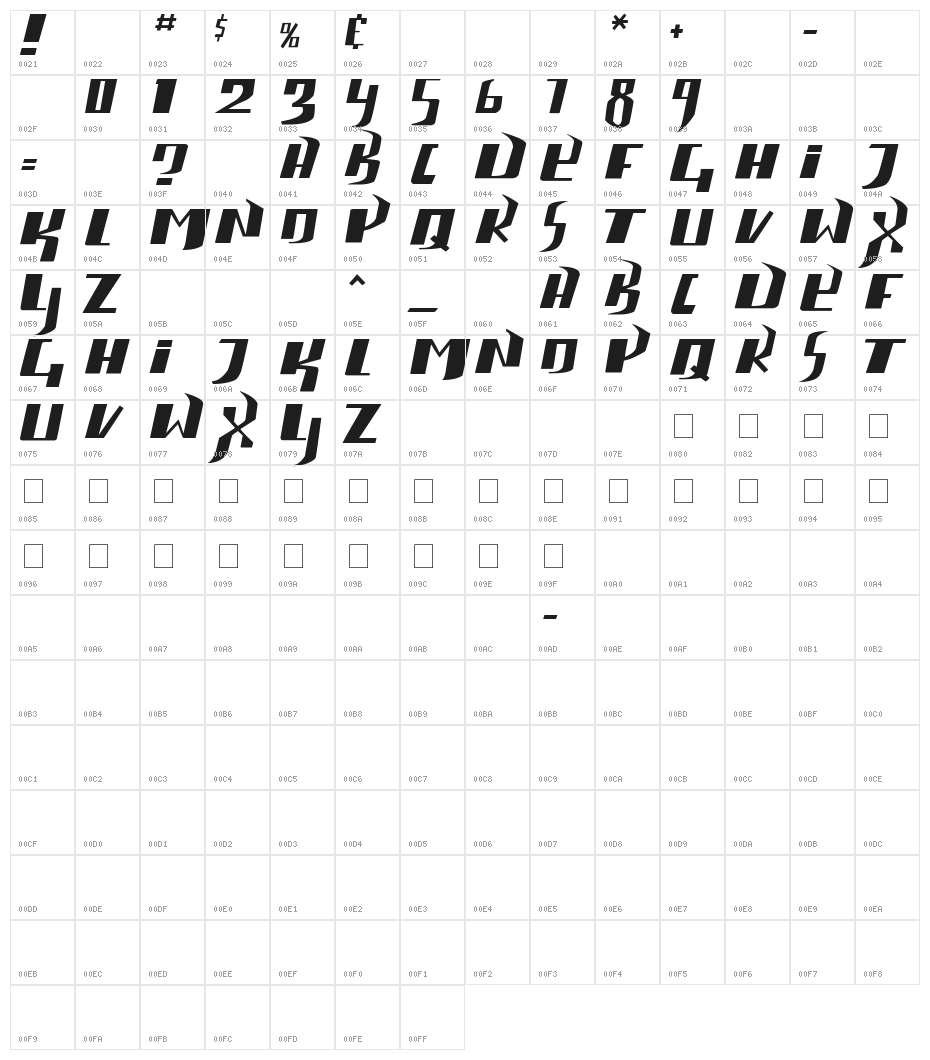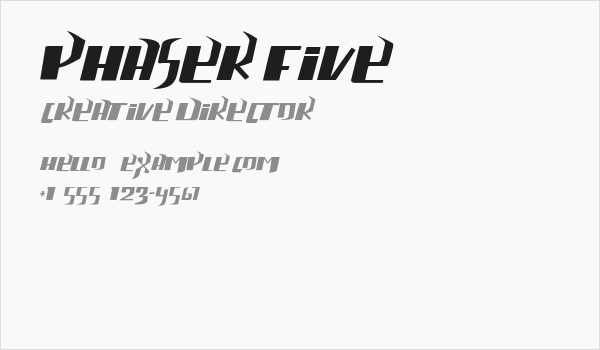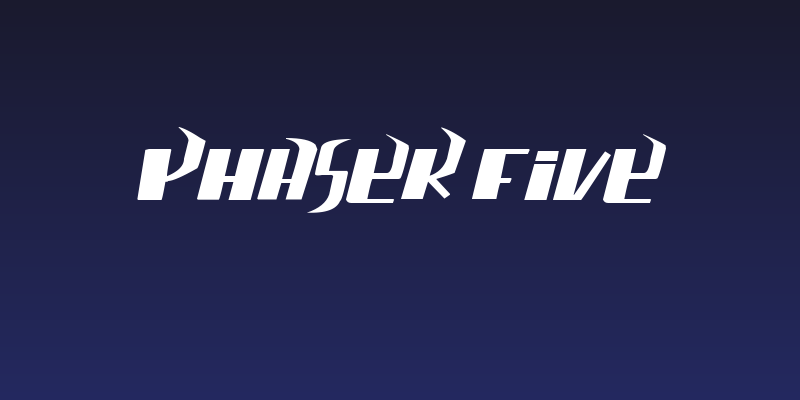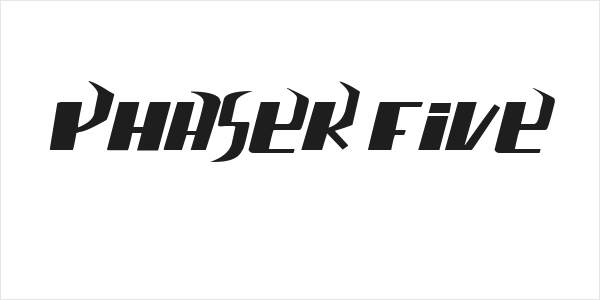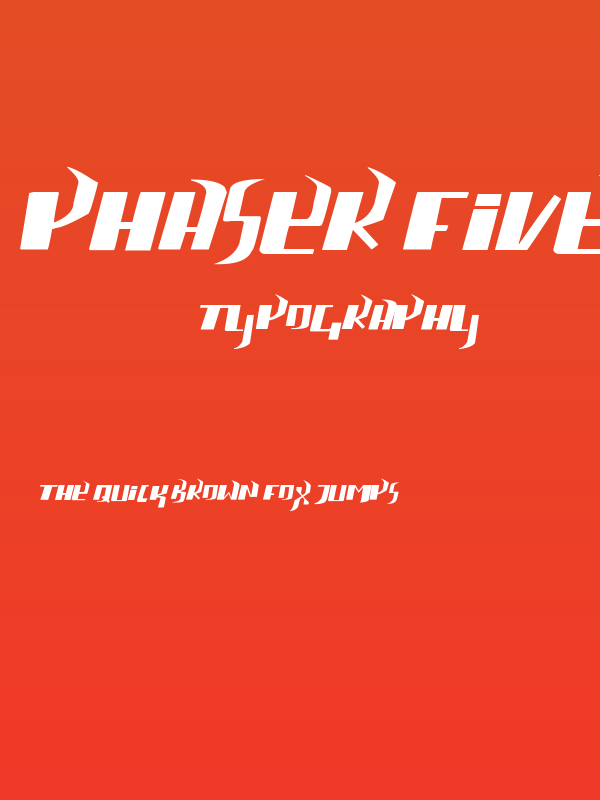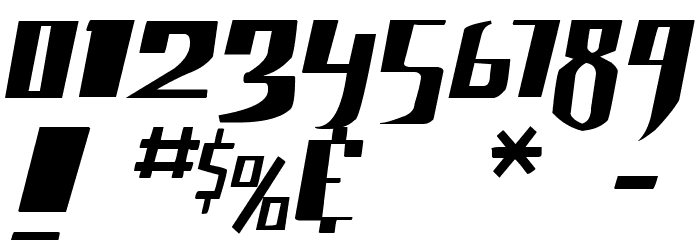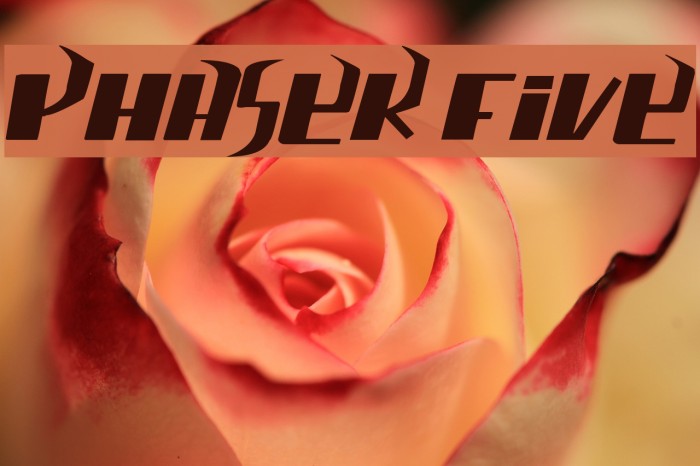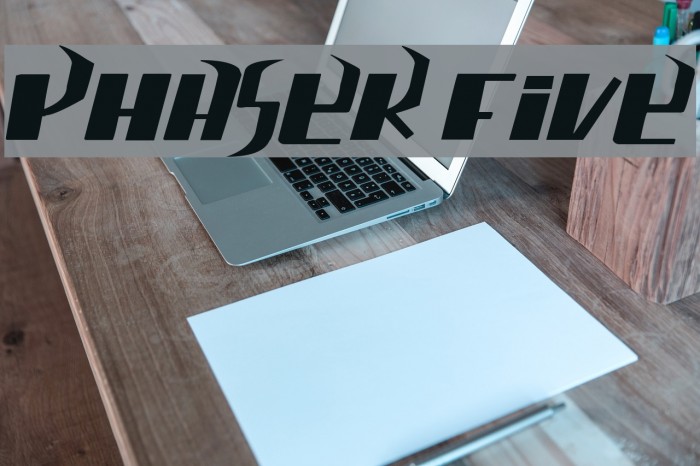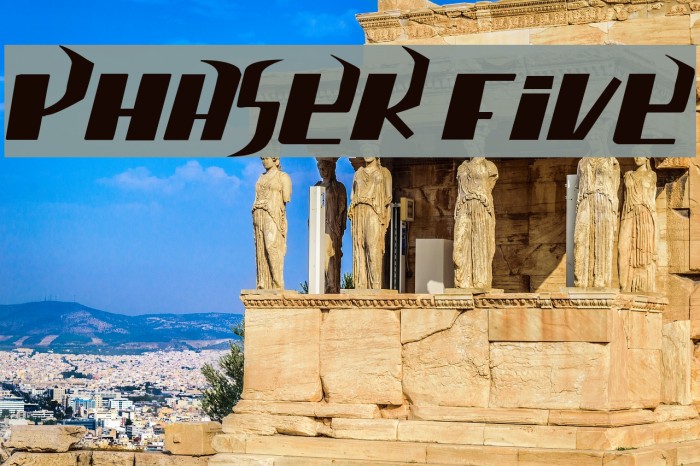
phaser five Font
phaser five Description
This font features a bold and dynamic design with sharp, angular edges and a futuristic aesthetic. The characters are stylized with a unique flair, incorporating pointed tips and varying line thicknesses that create a sense of movement and energy. The uppercase and lowercase letters maintain a consistent style, while the numbers and special characters complement the overall design. This font's striking appearance makes it ideal for projects that require a modern and edgy look.
PHASER-FIVE UPPERCASE
PHASER-FIVE LOWERCASE
PHASER-FIVE OTHER CHARS
| Proposed Projects | Ideal for sci-fi themed posters, video game titles, branding for tech companies, and edgy graphic design projects. |